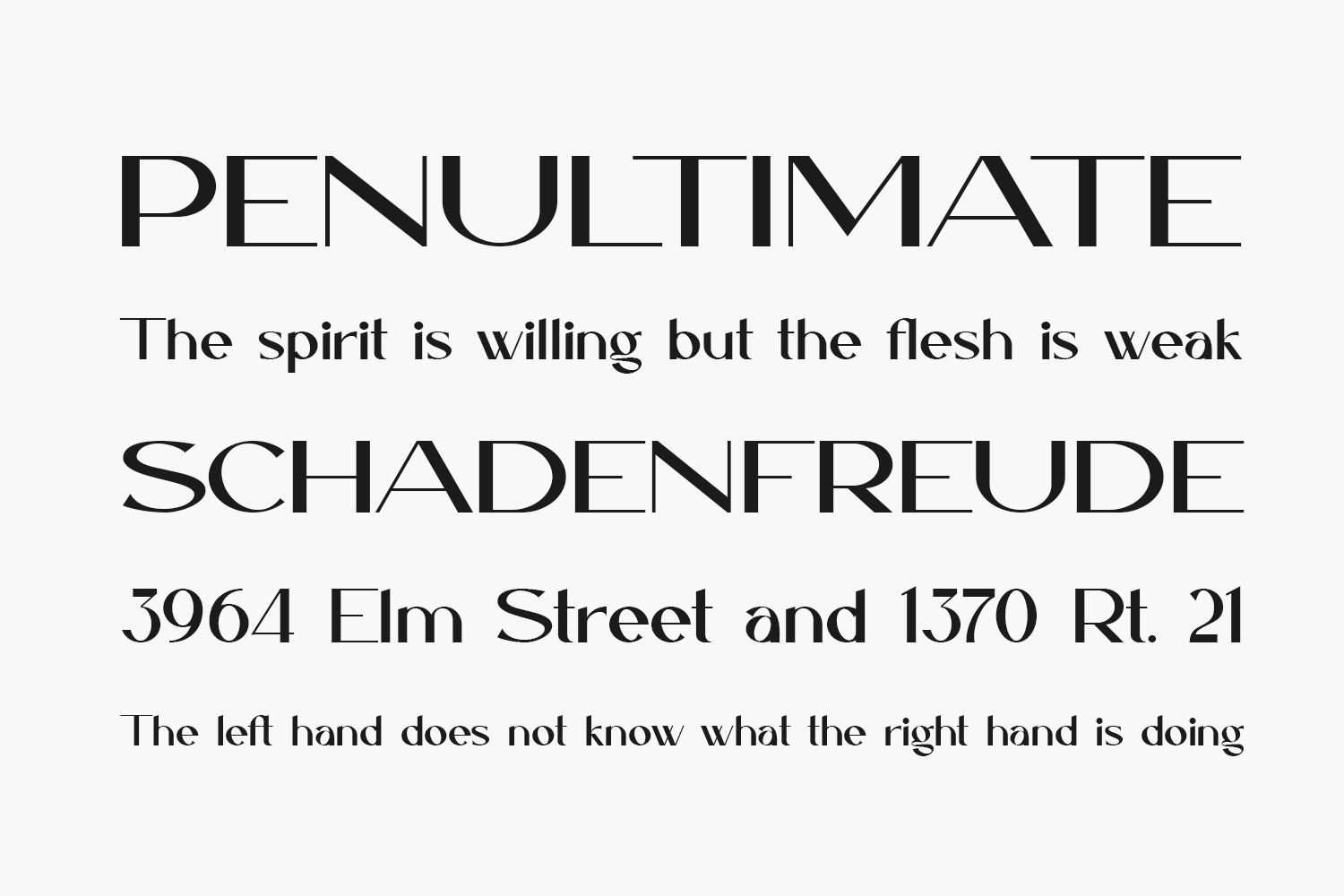
Free Caligna Font
Experience the timeless charm and sophistication of Caligna Font Free. This exquisite display font pays homage to the artistry of traditional calligraphy, boasting a dynamic baseline, sleek curves, captivating glyphs, and striking alternate characters. Download the font for free if you need it for personal use or purchase the full version for commercial use.